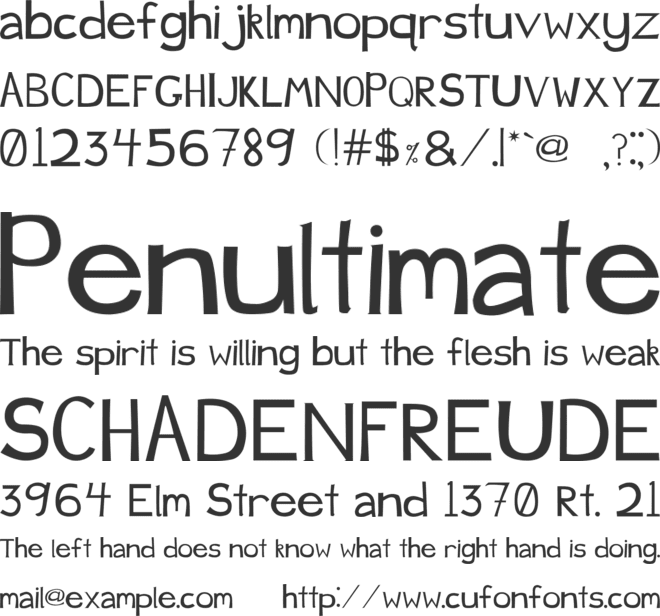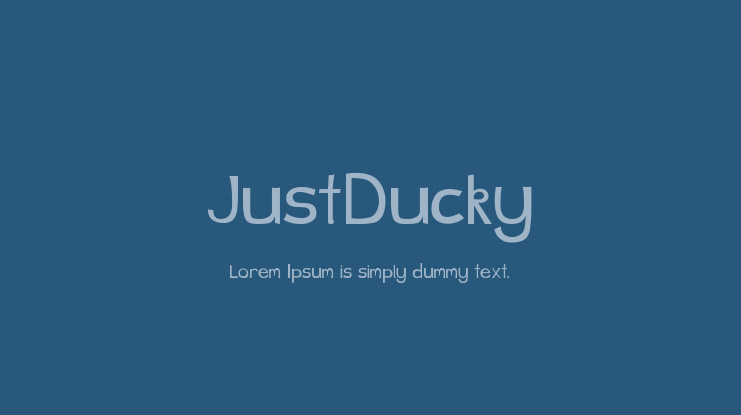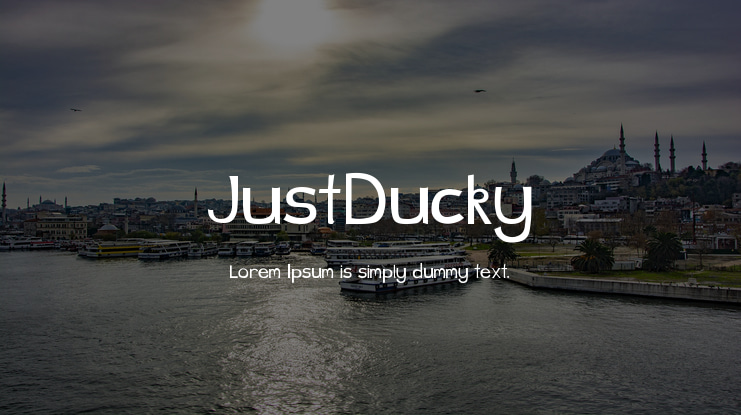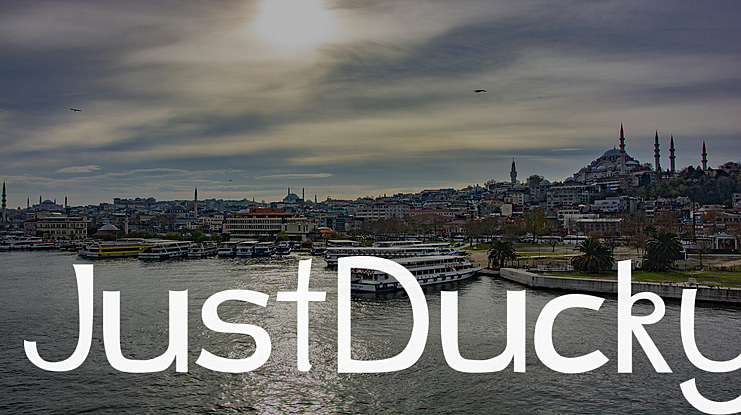
JustDucky Font
This is my font, "Just Ducky".
It's supposed to be cute, and it's a pretty funky mix of serif and sans-serif, because that is just how I roll. Use it, share if you'd like, UNDER THE CONDITIONS THAT WHERE IT IS USED AND SHARED, YOU CREDIT ME & LET ME KNOW, because this is my first 'real' font, and it took me a long, long time.
Also don't use it for evil. I'm not sure how you could use a font for evil, but if you're using it for something morally questionable, please choose another font. This font doesn't even begin to look suited for evil, anyway. Surely evil is all serifs?
Sorry if any of the punctuation marks look too skinny; I made a font that *I* like, so it's quirkier than most.
JustDucky SemiSerif font